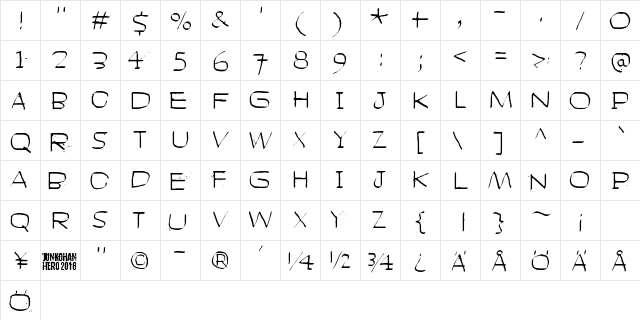
Head like a hole Regular
Design Context for Head like a hole Typeface
Head like a hole is a composed and adaptable typeface that performs quietly and consistently across a wide range of design contexts.